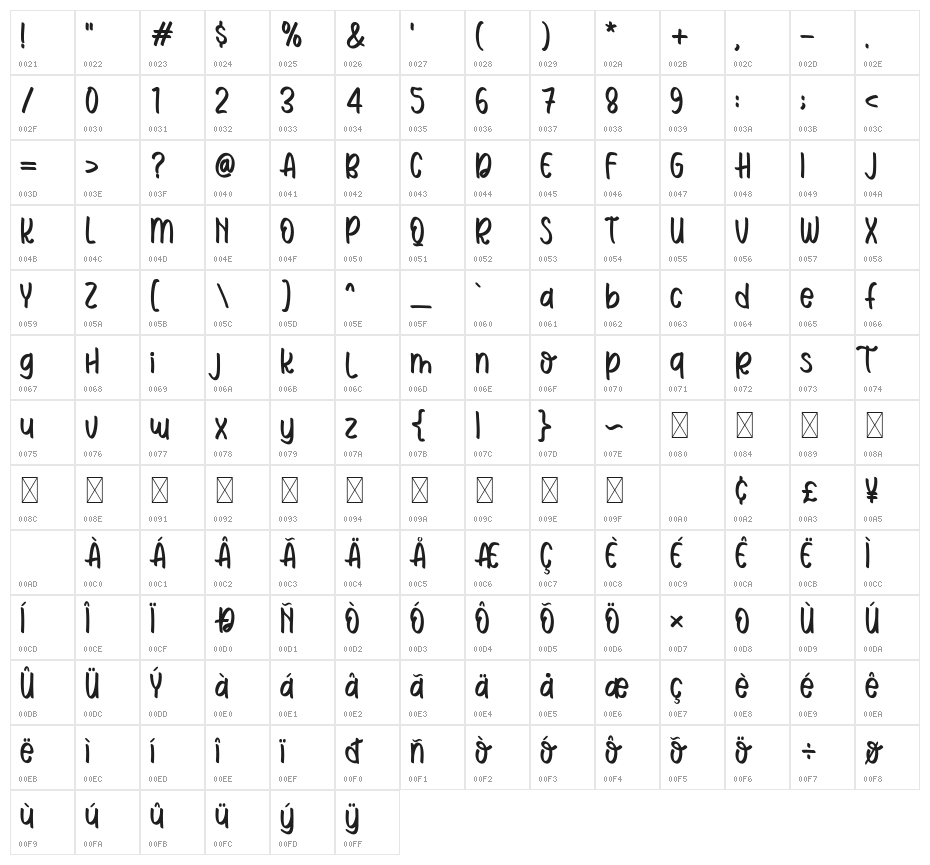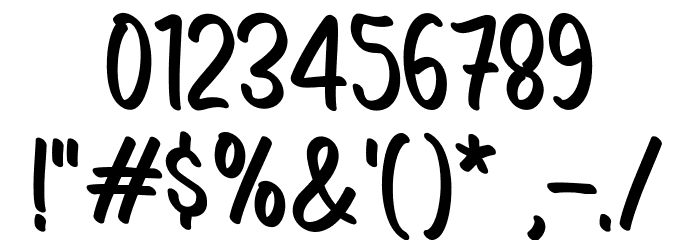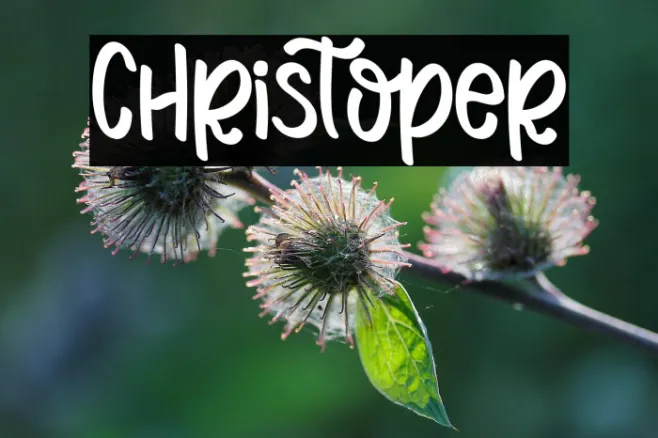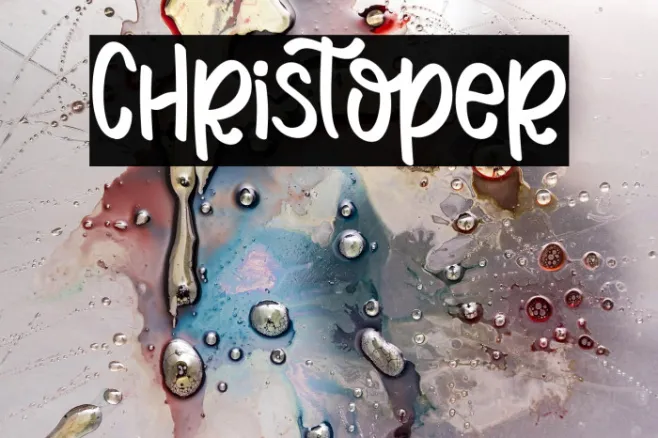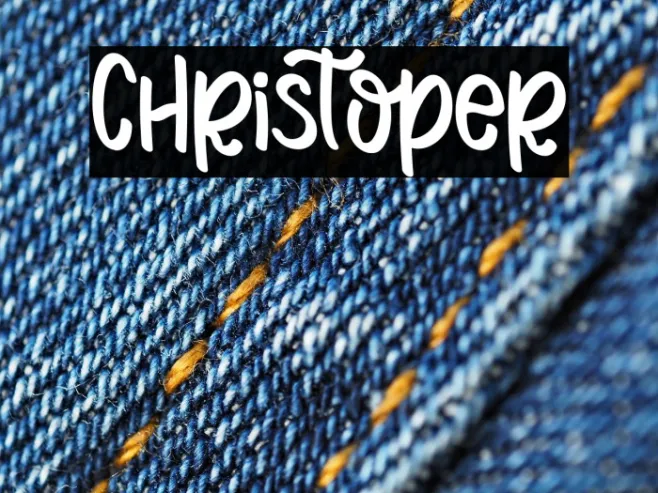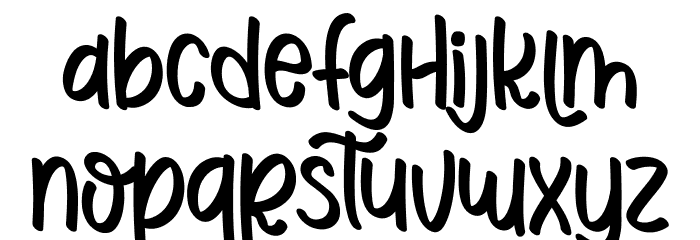
Christoper Font
Christoper Description
This font exudes a playful and casual vibe with its handwritten style. The letters are bold and rounded, featuring a consistent thickness throughout, which adds to its friendly and approachable appearance. The uppercase and lowercase letters maintain a uniform height, creating a cohesive look. The numbers and special characters are designed to match the overall aesthetic, ensuring versatility across different uses. The strokes are smooth and slightly curved, giving the font a dynamic and lively feel. This font is perfect for projects that require a personal touch or a fun, informal tone.
| Overall Style | Casual, Playful |
| Proposed Projects | Ideal for greeting cards, children's books, social media graphics, and playful branding. |